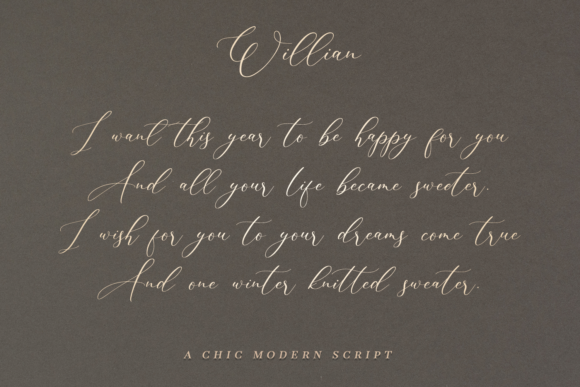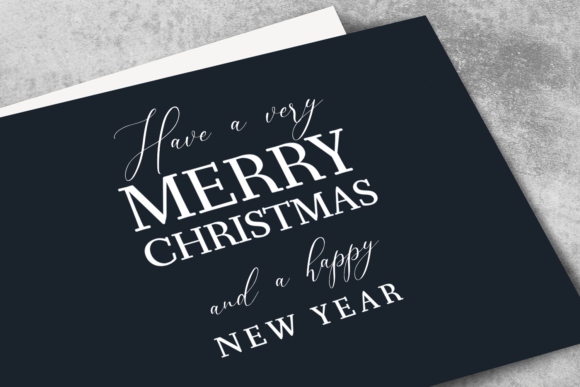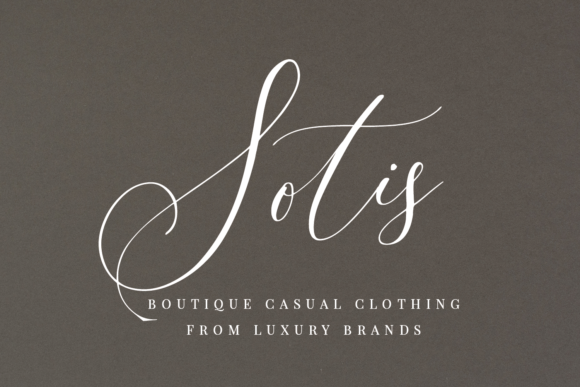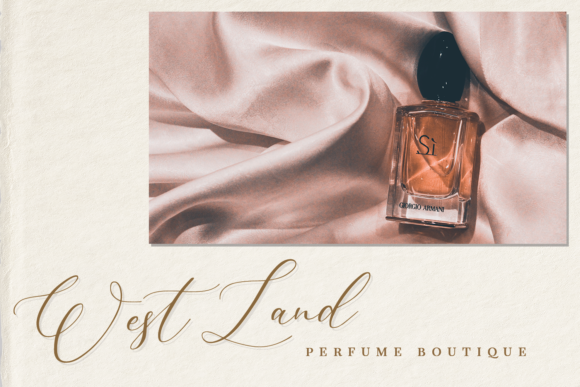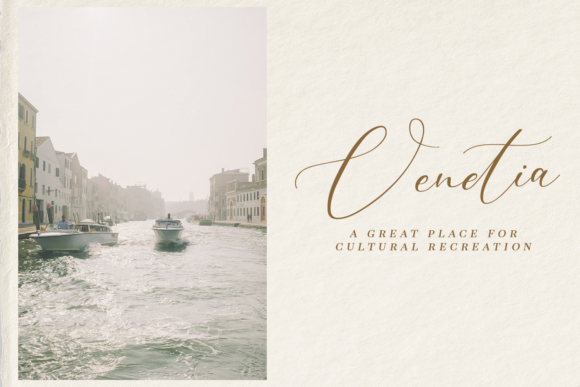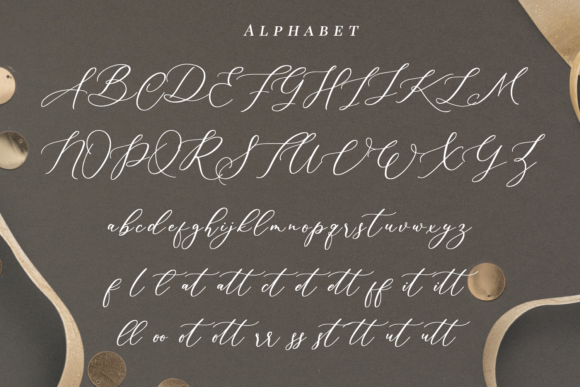
Willian Font
About Willian Font
Willian is a flowing and beautiful handwritten font. It is defined by smooth curves and is perfect for fashion branding or editorial designs. Add it confidently to your projects, and you won’t be disappointed.